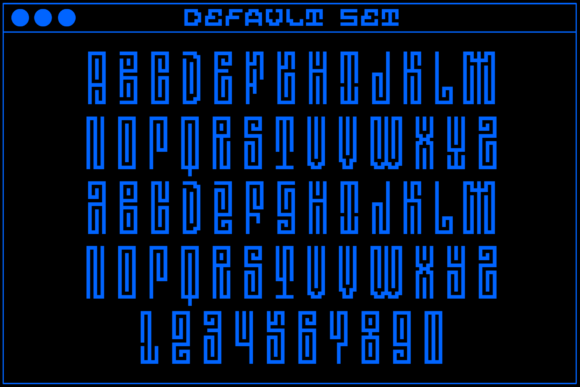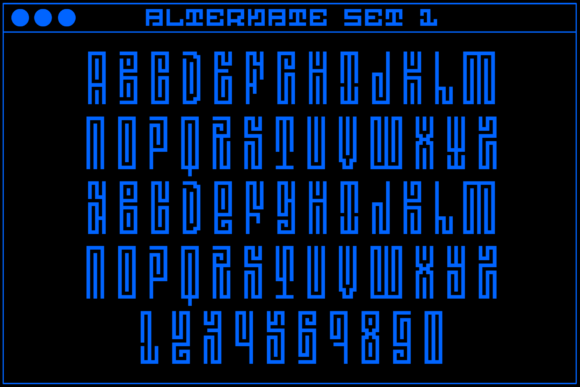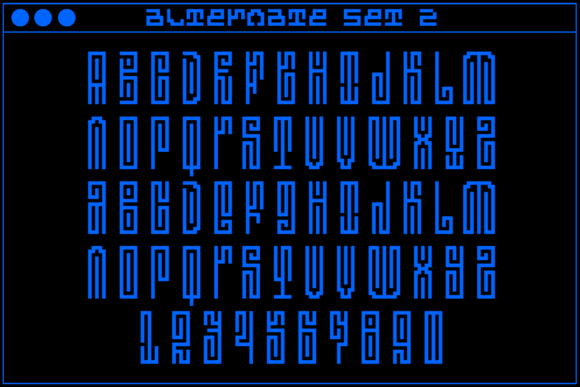
Introduction to MultuType Maze Symbols Font
MultiType Maze Symbols is a cool, uniquely shaped, pixelated display font.
Add a distorted and trendy touch to your designs with this unusual pixel font MultiType Maze Symbols is PUA encoded which means you can access all glyphs and swashes with ease.
MultuType Maze Symbols Font offers exceptional quality and versatility, making it a valuable addition to your design toolkit. Whether you’re creating for personal projects or commercial use, MultuType Maze Symbols Font delivers professional results.